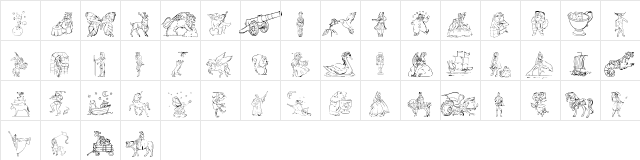
001 Once Upon a Time Regular
Design Context for 001 Once Upon a Time Typeface
001 Once Upon a Time is a composed and adaptable typeface that performs quietly and consistently across a wide range of design contexts.